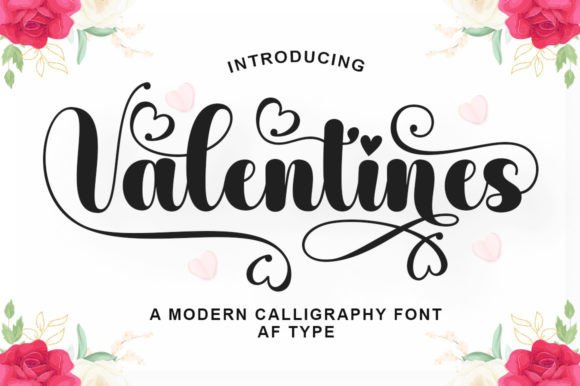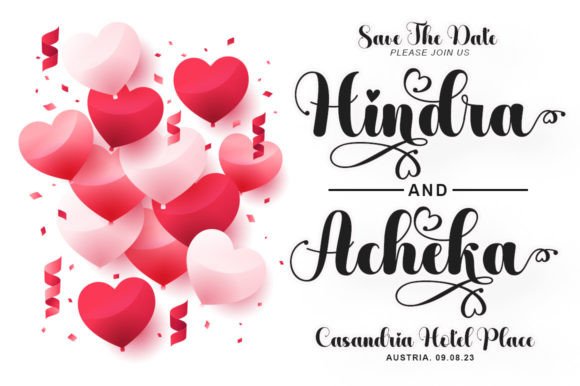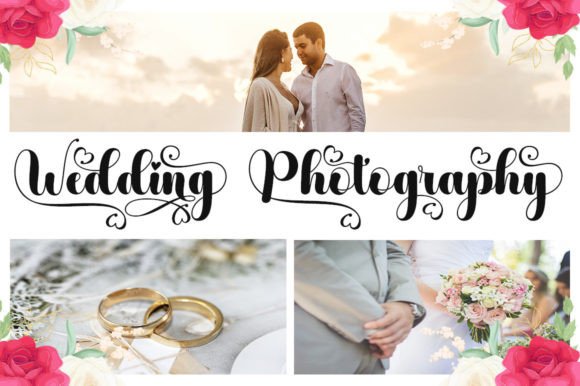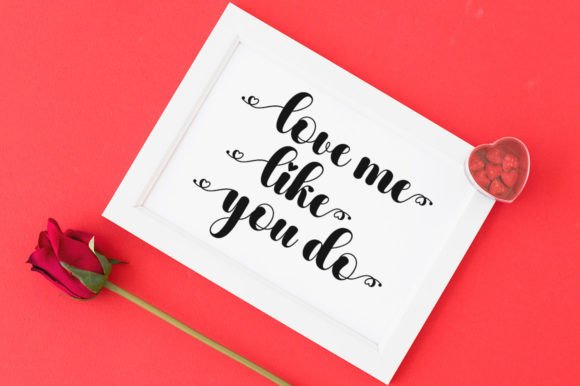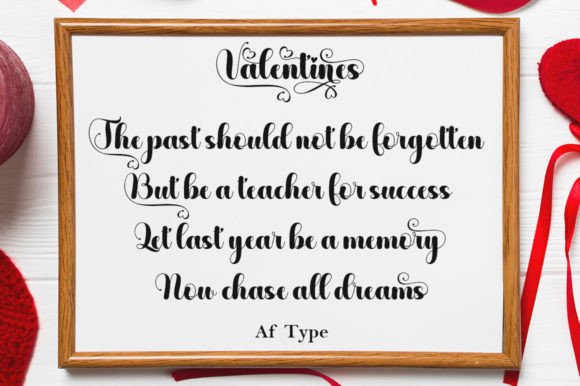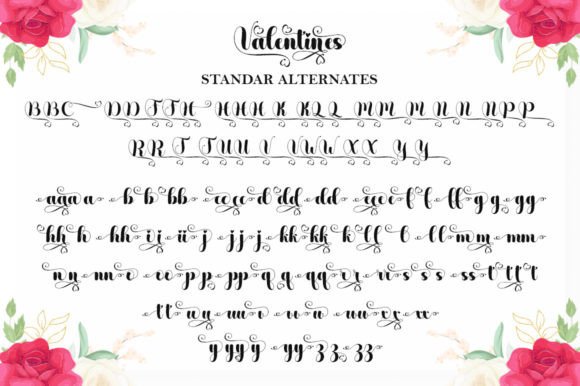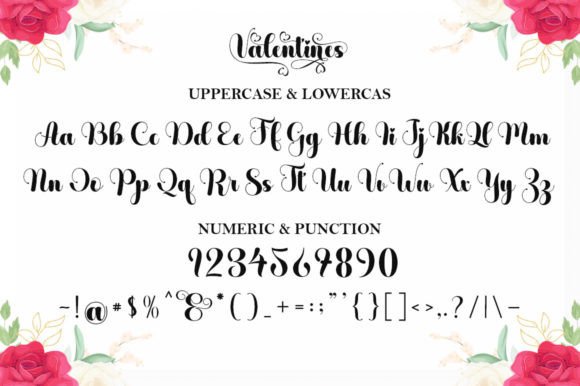
Valentines Font
What Is Valentine’s Font?
Valentine’s Font is a sweet and gentle cursive typeface designed to add warmth and romance to your creative projects. Each letter features flowing, graceful strokes that feel personal and sincere. Because of its soft style, this font is perfect for designs that need a heartfelt, handcrafted look.
You will see how effortlessly Valentine’s brings a joyful touch to any project.
Valentine’s is a highly versatile font you can use for many types of design. For example, it’s ideal for wedding invitations and event stationery. The cursive style creates an elegant, romantic atmosphere that feels special.
In addition, it works beautifully for greeting cards and thank-you notes. Whether you’re celebrating a holiday or sending a kind message, Valentine’s adds a personal feel.
You can also use it for quotes and social media graphics. The smooth, sweet letters make your posts stand out and feel inviting.
When you create logos or product packaging, Valentine’s brings a charming touch that captures attention and adds a premium look.
Moreover, it’s great for scrapbooking, journals, and personal projects. Every page will look polished and full of life.
Why Should You Choose Valentine’s Font?
There are many reasons to choose Valentine’s for your next design. First, it’s easy to read while maintaining a delicate, cursive flow. Whether you use large titles or small text, every letter remains clear and smooth.
Also, Valentine’s pairs beautifully with serif or sans-serif fonts. This allows you to build balanced, contemporary layouts with ease.
Designers appreciate that it looks polished out of the box, saving time while delivering professional results.
Valentine’s Font adds warmth and romantic style to every project. For example, when you want your designs to feel joyful and inviting, this font makes it simple.
Even minimalist layouts look more engaging with Valentine’s smooth, flowing strokes. Whether you create cards, packaging, or social media content, your work will stand out.
Using a premium cursive script also shows your attention to detail and commitment to quality. This builds trust and makes your designs more memorable.
Valentine’s Font is more than just a typeface—it’s a creative tool that helps you share ideas with clarity and heart. From invitations and quotes to logos and product labels, this font adapts easily and leaves a lasting impression.